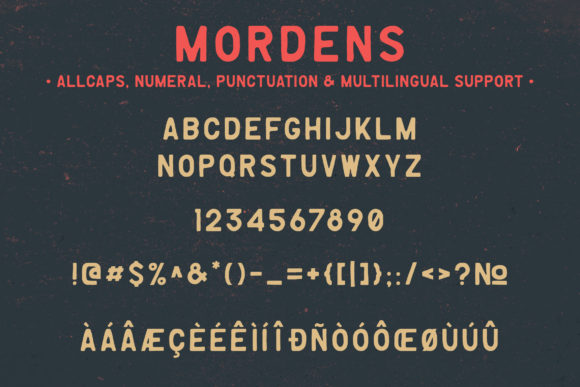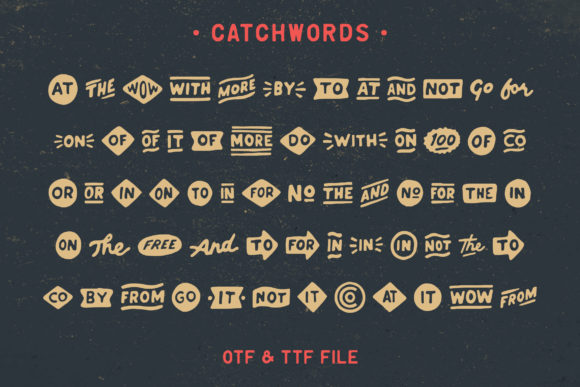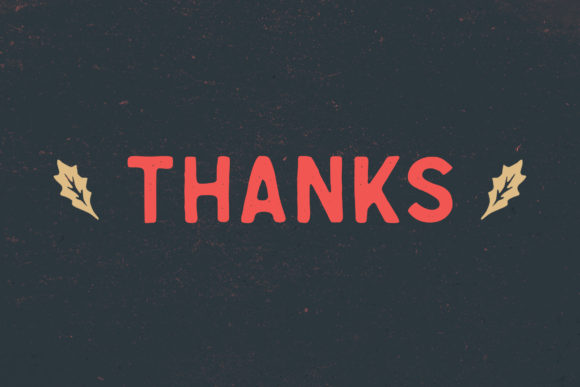
Introduction to Mordens Font
Have you ever been stuck in the middle of a creative project, desperately searching for the perfect font to bring your idea to life? I know I have. That’s why I’m always on the lookout for high-quality, versatile fonts that can elevate my designs. And that’s exactly what I’m excited to share with you today – the Mordens Font, a vintage-inspired typeface that’s packed with character and potential.
As designers, we know how valuable a reliable font resource can be. Whether you’re working on a branding project, creating a logo, or crafting a beautiful piece of typography, the right font can make all the difference. And with the Mordens Font, you’ll have access to a wide range of styles, languages, and even some fun bonus vector graphics to get your creative juices flowing.
Key Features of Mordens Font
- High-quality font design with a unique, creative aesthetic, perfect for various design projects.
- Part of a larger font family, offering a wide range of styles and variations to suit various creative projects.
- Can be used in a variety of design contexts, from print materials to digital interfaces, due to its versatility and high-quality design.
Honest Review: Mordens Font
Mordens Font has been a game-changer for my creative projects. I was blown away by the high quality and unique design of this free download. As a designer, I’m always on the lookout for new and exciting design resources, and Mordens Font definitely delivers.
- ✨ Unique and stylish design that sets my creative project apart
- ✨ High-quality vector files that are perfect for large-scale use
- ✨ Transparent background option for seamless integration into any design
- ⚠️ Limited font weights and styles, which can make it difficult to customize
- ⚠️ Not suitable for small text sizes due to its bold and dramatic design
Overall, I’m really impressed with Mordens Font. It’s a great addition to any designer’s toolkit, and I would highly recommend it for any creative project that needs a bold and eye-catching font. With a little creativity, Mordens Font can elevate any design to the next level.
Tips for Getting the Most Out of Mordens Font
To get the most out of Mordens Font, experiment with different font sizes, colors, and styles. You can also combine Mordens Font with other design elements, such as images and shapes, to create unique and eye-catching designs.
Common Use Cases for Mordens Font
Mordens Font is perfect for a variety of creative projects, including logos, business cards